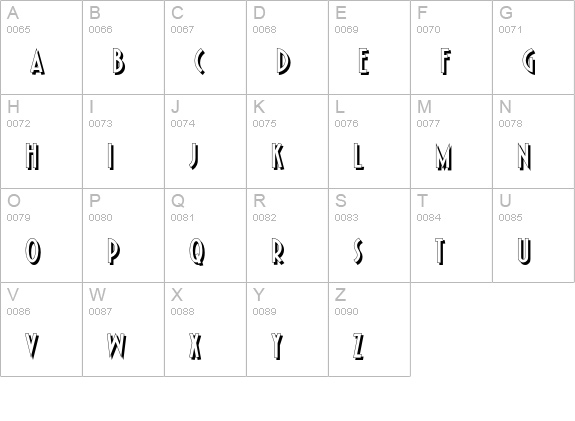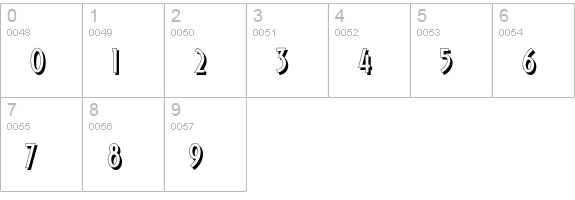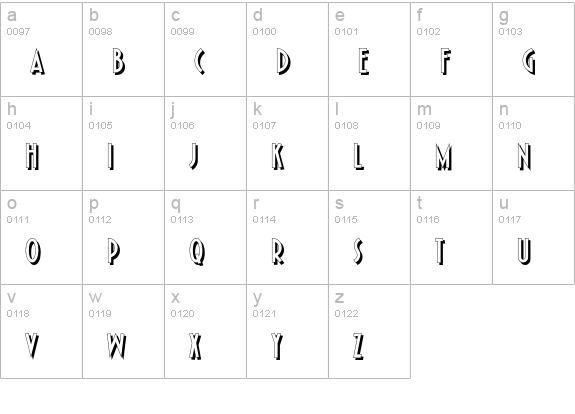
Pleasure Bold Shaded Std is a strong, high-contrast variant in the Pleasure typeface family \xE2\x80\x94 well suited to headlines, attention-grabbing titles, and strong calls-to-action.
Pleasure Bold Shaded Std font is a striking display typeface that exudes confidence and sophistication. With its bold and shaded design, this font is perfect for making a statement in headlines, logos, and other branding materials. The unique combination of boldness and shading adds depth and dimension to any text, making it stand out in any design project. What's even better is that Pleasure Bold Shaded Std font is available for free download at FontsMarket.com. This means you can easily access this stylish font and use it in your projects without any cost. Whether you're working on a personal project or a commercial endeavor, this font is a versatile choice that will add a touch of elegance to your designs. Don't miss out on the opportunity to enhance your creative work with the eye-catching Pleasure Bold Shaded Std font, now available for free at FontsMarket.com.